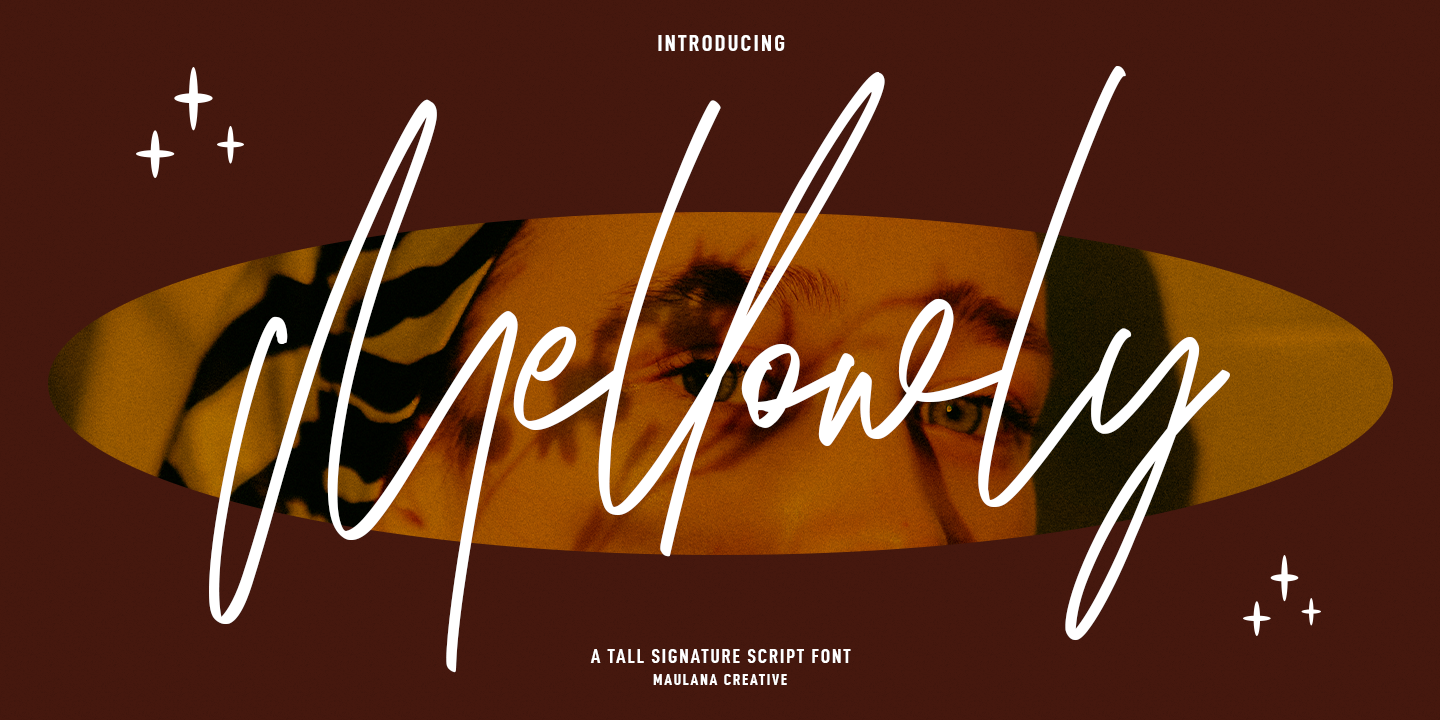
Mellowly Font is a soft and wonderfully comforting typeface, perfectly suited for projects that aim to evoke a sense of calm, warmth, and gentle charm. Imagine it gracing the packaging of artisanal candles or soothing skincare products, adding a relaxed and inviting touch to wellness brand identities, or bringing a cozy, personal feel to lifestyle blogs and mindfulness content. It's also an excellent choice for crafting heartfelt greeting cards, designing unique labels for homemade goods, or infusing social media graphics with a serene and approachable personality. If you're looking to convey tranquility, comfort, and an undeniable sense of quiet contentment, Mellowly Font is an absolutely delightful selection.
What makes Mellowly Font so exciting? It’s its unique ability to combine a casual, often handwritten or rounded aesthetic with impressive legibility, making it both visually appealing and highly practical for diverse applications. This font often features soft curves, gentle variations in stroke, and a fluid rhythm that gives it an immediate sense of warmth and accessibility. Despite its informal character, Mellowly Font is meticulously designed to maintain excellent readability, ensuring your message is communicated clearly and with a warm, inviting tone. Designers will appreciate its versatility in creating designs that feel both intimately personal and professionally charming, making it a go-to choice for brands and projects that aim to connect with their audience through themes of peace, simplicity, and a welcoming atmosphere.
The Mellowly Font family is typically designed to showcase a singular, distinctive display or script style that perfectly encapsulates its unique appeal. While it may not feature extensive weight variations like a traditional text font, its strength lies in its inherent personality and often includes stylistic alternates or simple ligatures that enhance its gentle aesthetic. These subtle details allow Mellowly Font to maintain its cohesive and heartwarming look across various applications, from inviting e-commerce banners for home goods to charming personal correspondence. Discover the delightful possibilities with Mellowly Font Free Download and infuse your designs with an irresistible, comforting charm.